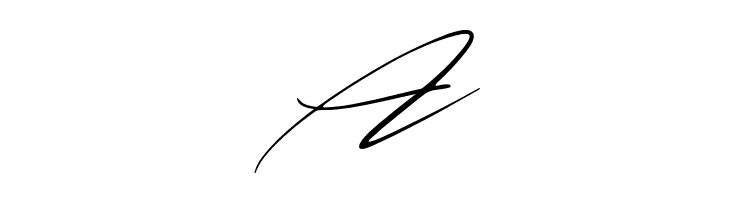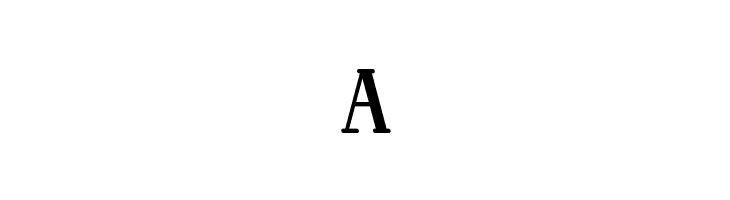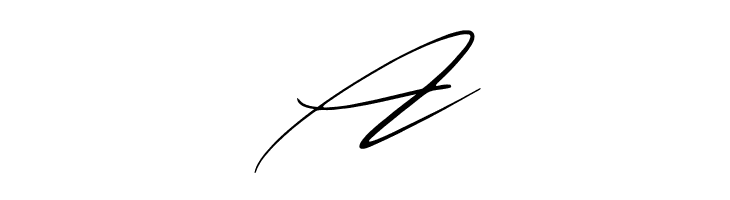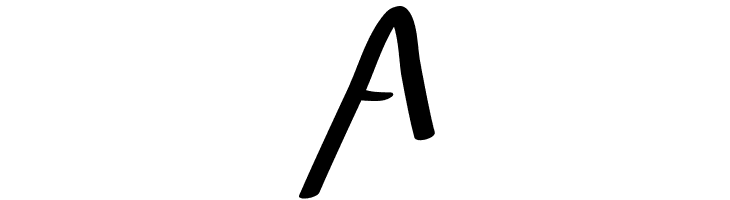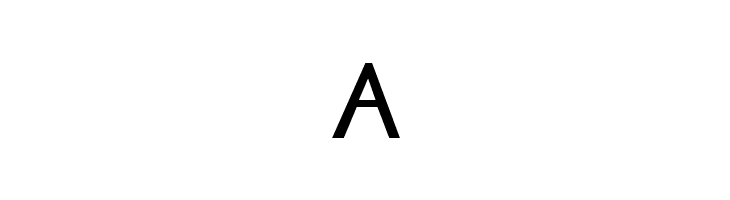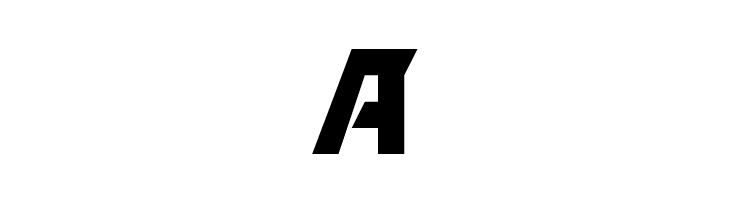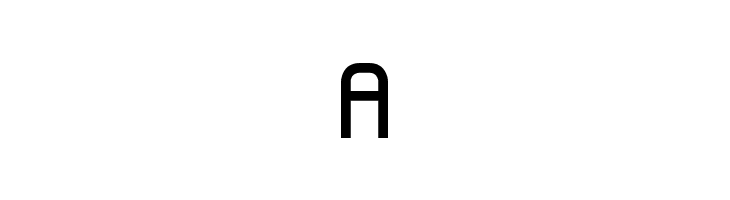
A bold, brush-style script with a textured, distressed appearance.
A bold, brush-style script with a textured, distressed look.
An elegant script font with flowing, interconnected letters and graceful loops.
An elegant script font with flowing, cursive style and high contrast strokes.
A bold, playful font with rounded, bubbly characters ideal for fun and retro designs.
A decorative font with lizard-like embellishments on each character.
A bold, modern sans-serif font with clean, geometric lines.
A sleek, modern sans-serif font with an italic slant.
A modern, thin sans-serif font with a clean and elegant design.
A bold, geometric font with a modern and futuristic design.
A modern, italicized font with a sleek and futuristic design.
A modern, geometric font with clean lines and a structured appearance.
A modern, geometric font with sharp, angular lines and a futuristic style.
A playful, handwritten font with a whimsical and casual style.
A bold, distressed font with a rugged, grunge-inspired style.
A rugged, stencil-style font with jagged edges and a bold presence.
A flowing, cursive script font with an elegant italic slant.
A sophisticated, elegant script font with flowing, cursive letterforms.
A bold, 3D-effect font with geometric lines and a retro-modern style.
A playful, handwritten font with a casual and quirky style.
A bold, intricate blackletter-style font with high contrast and decorative elements.
A classic serif font with elegant curves and strong presence.
A modern serif font with bold lines and elegant serifs.
A playful, bold handwritten font with a lively and dynamic style.